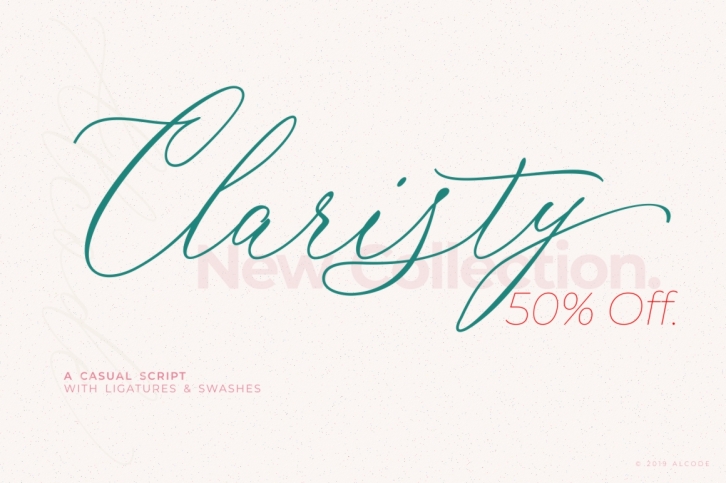
Claristy FONT Download
Claristy is a gorgeous font that was realeased on May 16, 2019. The font can be used in many style contexts and design environments. Perfect for invitations, magazines, websites, logos, and more! It was designed by Alcode and the file size is 10.63 MB. Thanks for checking out this font!